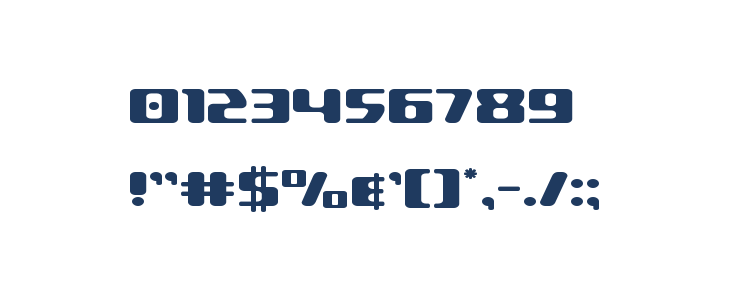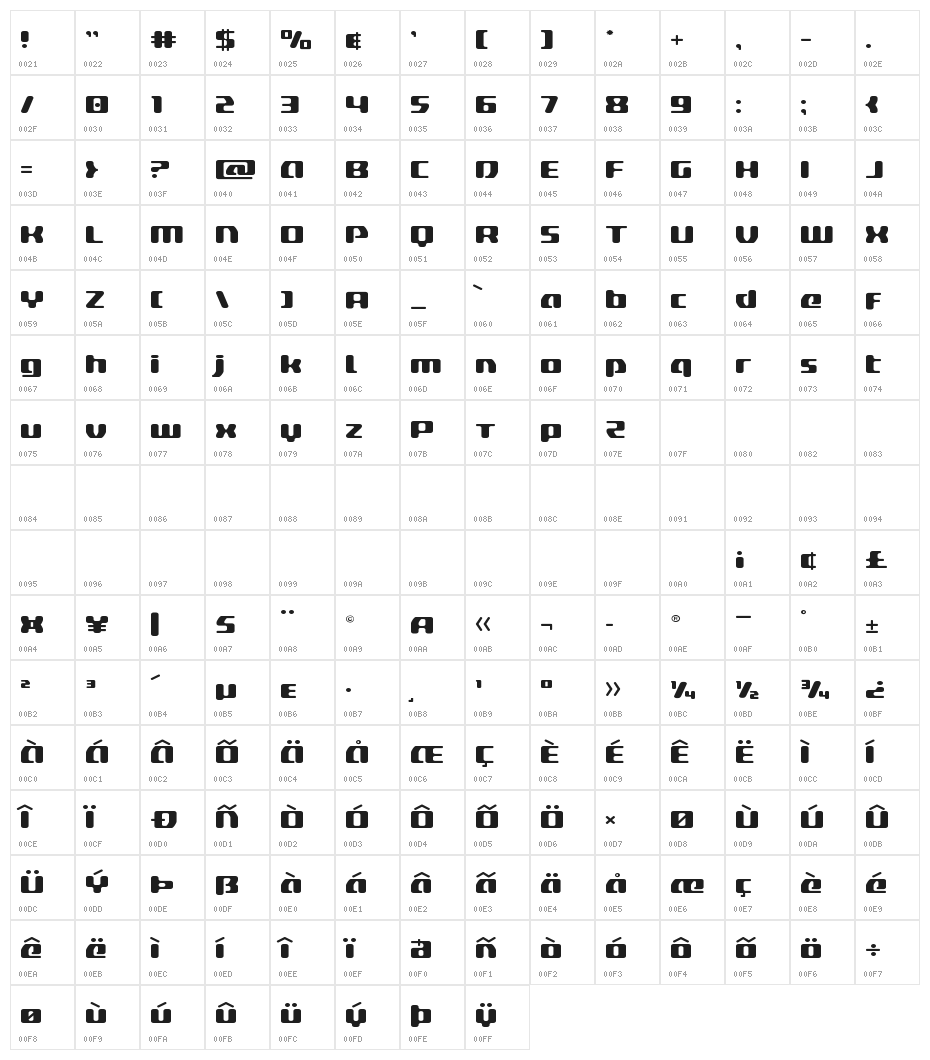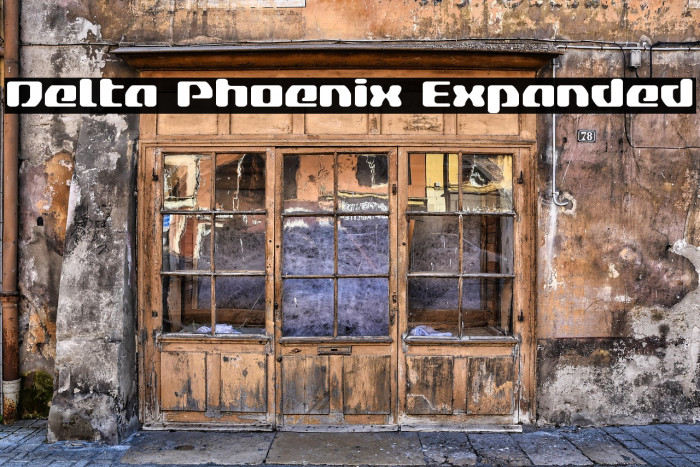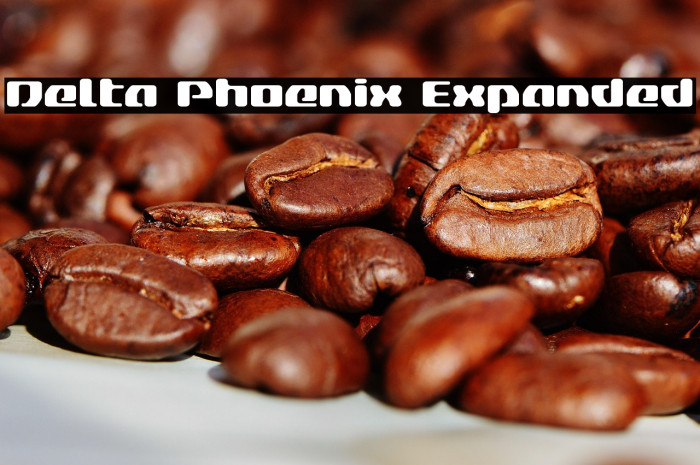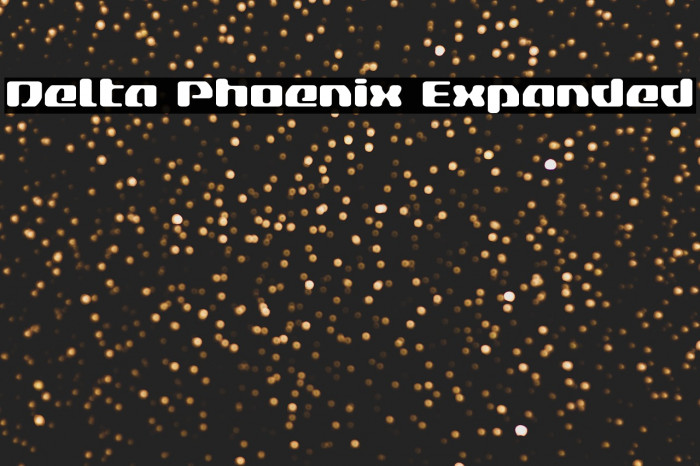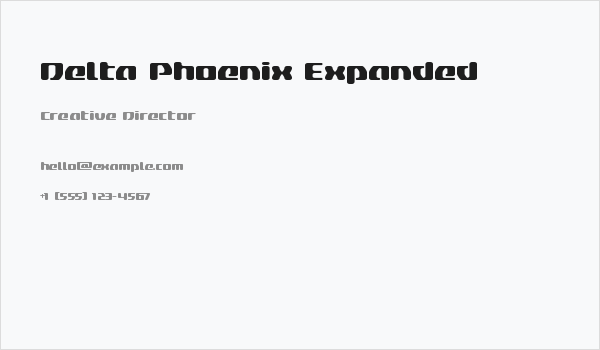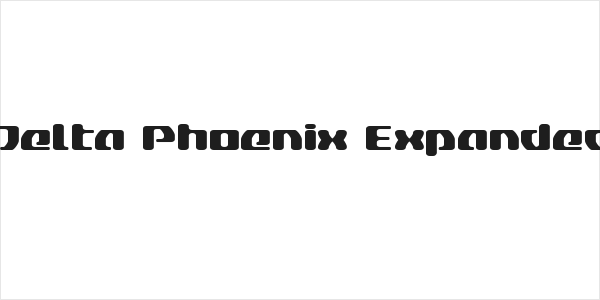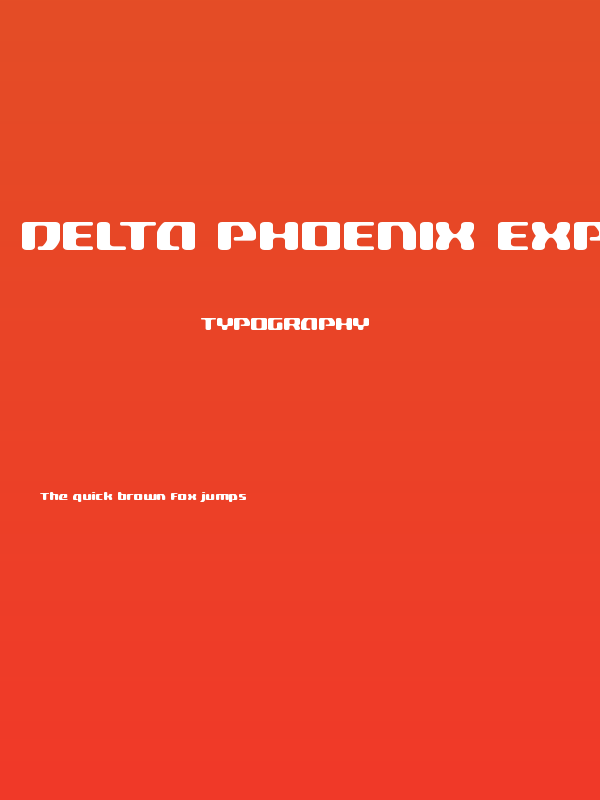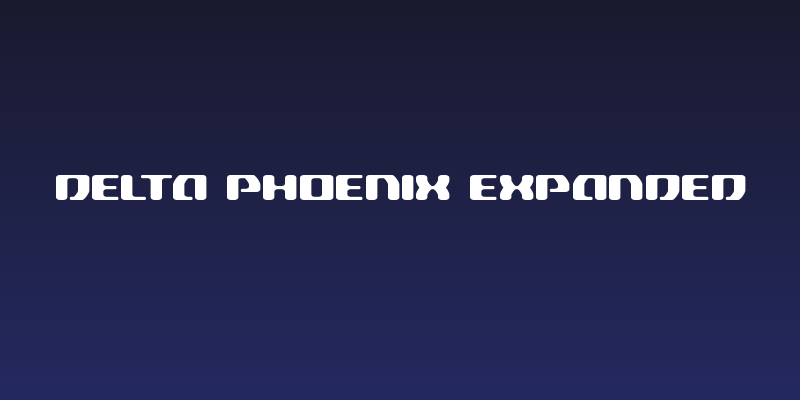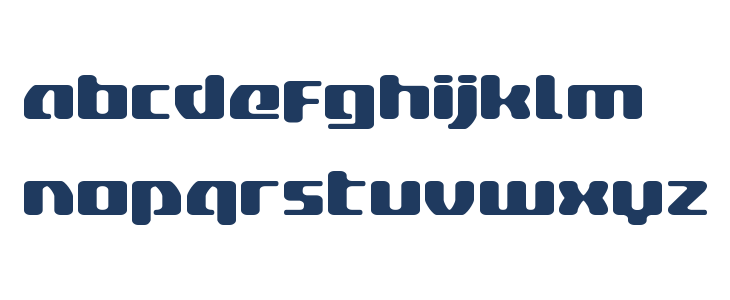
Delta Phoenix Expanded Font
Delta Phoenix Expanded Description
This font features a bold and futuristic design with a distinctly geometric and expanded style. The characters are wide and have a uniform thickness, creating a strong visual impact. The rounded edges and smooth curves give it a modern and sleek appearance, while the expanded width adds a sense of stability and presence. The font maintains a consistent weight throughout, ensuring readability and clarity. Its unique style makes it suitable for projects that require a bold and contemporary look.
| Proposed Projects | Ideal for branding, headlines, posters, and any design requiring a strong, modern aesthetic. |